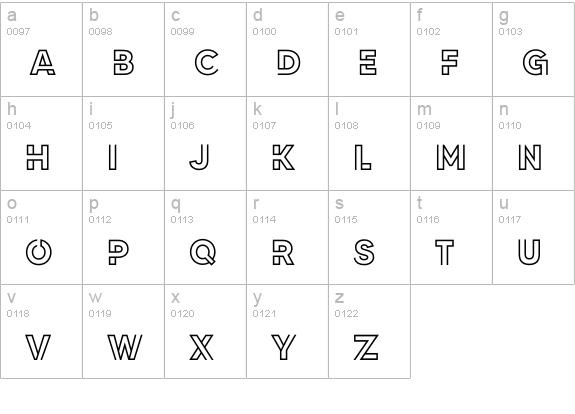
Neon Led Light Font is a refined, elegant variant in the Neon typeface family \xE2\x80\x94 well suited to elegant body text, refined sub-headings, and luxury branding.
Introducing the Neon LED Light Font, a striking and modern typeface that radiates a vibrant and futuristic aesthetic. This font embodies the sleek and captivating allure of neon lights, making it perfect for projects that require a bold and eye-catching design. The Neon LED Light Font features clean lines and sharp edges, creating a polished and professional look that commands attention.